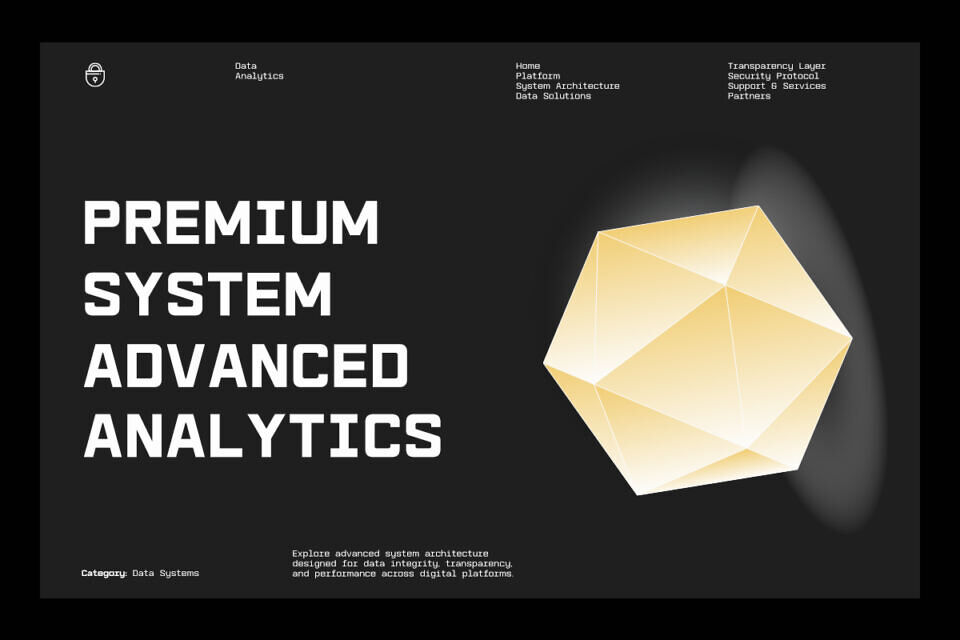
Gatecode is a modern monospace sans serif font inspired by futuristic interfaces, coding systems, and digital technology aesthetics. Featuring clean geometric construction, balanced spacing, and a strong techno personality, this typeface delivers a sleek modern appearance perfect for contemporary branding and creative display projects.
Designed for versatility, Gatecode works beautifully for technology branding, UI/UX design, gaming visuals, startup identity, posters, editorial layouts, web design, coding themes, digital products, social media graphics, and cyber-inspired creative projects.